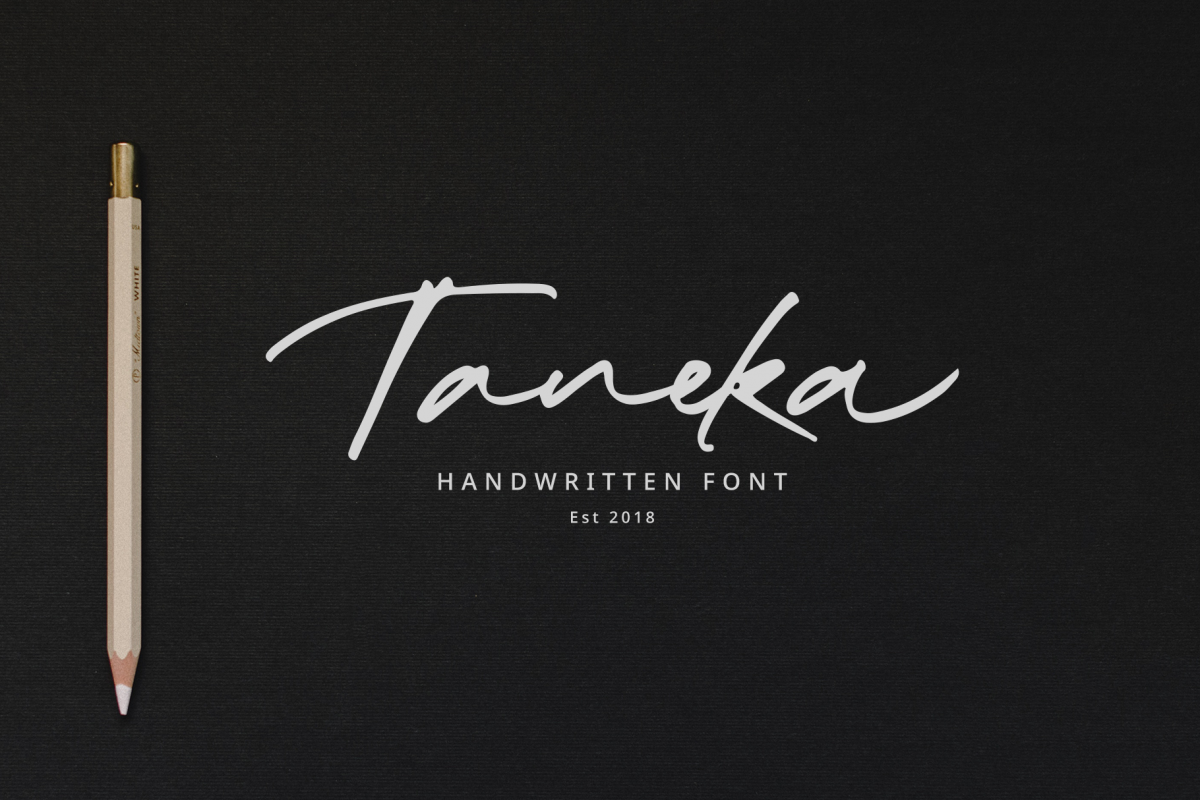
Taneka Handwritten
Taneka is a modern handwriting from the maker. The curves appear without any intentions, just flowing. It's suitable for every design project you are working on. Starting from logos, shirts, labels and other design needs.
Taneka comes with standard characters, with Uppercase, Lowercase, Numeral, Punctuation, Standard Multilingual and some opentype feature (Standard Ligature and Stylistic Alternates).